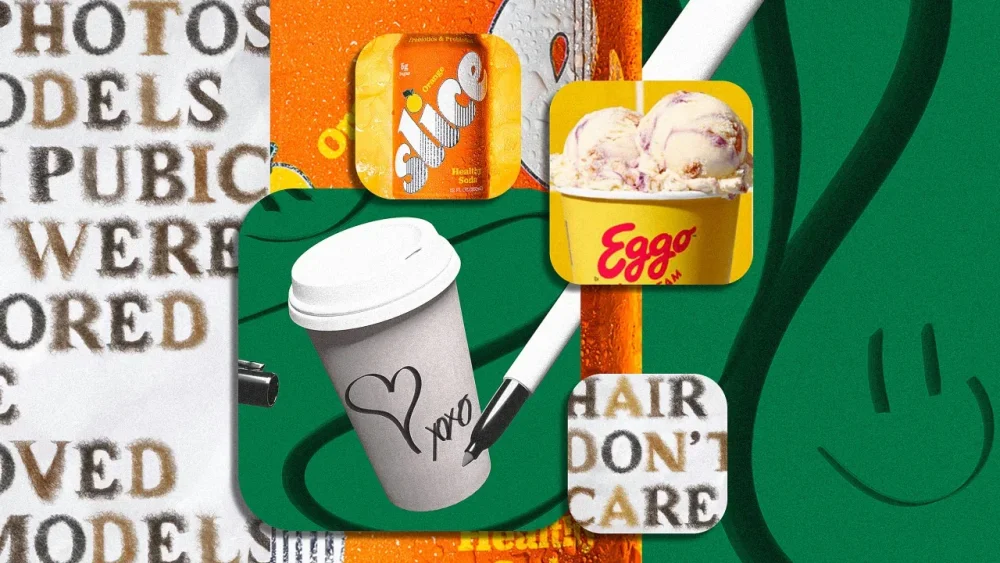
Kiehl’s makes a font out of pubes, Starbucks goes back to basics, and Slice soda returns from the ’80s
This week, skincare brand Kiehl’s debuted a hairy new font, Starbucks continued to roll out its feel-good nostalgia marketing, and an iconic ’80s soda was revived for the year 2025. Here’s all the branding news we’re keeping up with.
i-1-91274061-branding-round-up.jpg[Image: Kiehl’s]
Kiehl’s gets in on the custom type craze
The news: The skincare brand Kiehl’s just unveiled a new custom font made from an unexpected material: pubic hair.
Big picture: The font comes as a response to the backlash that Kiehl’s received in August for an ad campaign for a new product line targeting ingrown pubic hairs. Those initial ads featured fully covered models with just a glimpse of hair peeking out from the sides of their underwear. But several stores censored or removed the campaign after public criticism.
“We were taken aback,” Steven Waldberg, SVP of brand engagement and communications for Kiehl’s, told MediaPost. “It’s not like we were showing people’s genitalia or anything.”
Now Kiehl’s is hitting back at the haters with a fuzzy custom font made entirely out of pubic hair. The new print ads, which have taken humans out of the equation altogether, feature sarcastic statements like, “Apologies, we won’t ever show pubic hair again,” and “Our photos of models with pubic hair were censored so we removed the models.”
Why it matters: We’ve seen plenty of custom brand fonts lately—from the “Other Hand font” for Cheetos to Kellogg’s logo-centric font—but we have to hand it to Kiehl’s, this one might be the most outside-the-box yet. It’s not exactly a versatile typeface, but it’s nice to see Kiehl’s refusing to back down from a challenge.
i-2-91274061-branding-round-up.jpg[Illustration: FC]
Back-to-basics strategy at Starbucks
The news: Starbucks is making a wide-sweeping effort to return to its branding roots, and it seems to be paying off.
Big picture: Since CEO Brian Niccols joined the company last September, the brand has been slowly working to incorporate the “personal touches” that were once its signature, like handwritten names on to-go cups, a free milk station, and an overall focus on craft. The back-to-basics concept at Starbucks has been gradually appearing in a larger campaign this year, with several new ads highlighting the coffee-making process and out-of-home billboards featuring a handwritten look.
In an interview with the podcast Rapid Response, Niccols said of the changes, “We’re in the customer service business, and anybody that’s been involved with that knows the details do matter. And the reason why the details really matter for Starbucks is, frankly, those details are our point of difference. It’s how we get to another level of connection.”
Why it matters: The market seems to be responding positively to the changes so far, considering that Starbucks recently beat Wall Street’s fourth-quarter earnings expectations with $9.4 billion in revenue. The irony in all of this feel-good messaging is that Starbucks has recently taken the much-criticized step of barring noncustomers from using its restrooms, seating, and patio space. In a column for Fast Company, writer Rob Walker argued that the new code of conduct “is really just a de facto admission of what its brand is really about: The coffee giant is not really in the community space business at all. It’s a luxury brand, and it has been all along.”
i-3-91274061-branding-round-up.jpg[Photo: Suja Life]
Soda’s new lease on life
The news: For the second time in two months, an iconic soda of the 1980s is getting a new lease on life with a revival designed to attract a new era of soda drinkers.
Big picture: Slice soda, first launched in 1984 by PepsiCo, is set to return to shelves under the ownership of juice brand Suja Life. To tap into the wellness movement and functional beverage craze, today’s Slice will have low sugar, no high-fructose corn syrup, and plenty of gut-healthy prebiotics, probiotics, and postbiotics in a variety of flavors, including orange, lemon lime, classic cola, grapefruit spritz, grape, and strawberry.
Why it matters: Slice’s return is part of a larger industry trend. Just last month, energy drink company Redcon1 announced it would be bringing back the infamous Jolt Cola from the ’80s with a new functional twist. However, as Fast Company noted at the time, the new branding is pretty lackluster. Slice, on the other hand, looks just as cool as it did back in 1984. Suja Life has clearly based its new look on the OG design (rather than the clunkier ’90s version), including a typeface that’s literally sliced at the bottom, fruity icons dotting each “i,” and a diagonal label. The design has also been updated for the 21st century with brighter can colors and a trendier secondary font.
While Slice certainly looks pretty, its staying power is questionable at best. The brand has already been revived several times, including as a failed sparkling water in 2018, swiftly followed by a failed low-cal soda in 2021. It remains to be seen whether Slice’s new branding aesthetic will be enough to keep it afloat this go-round.